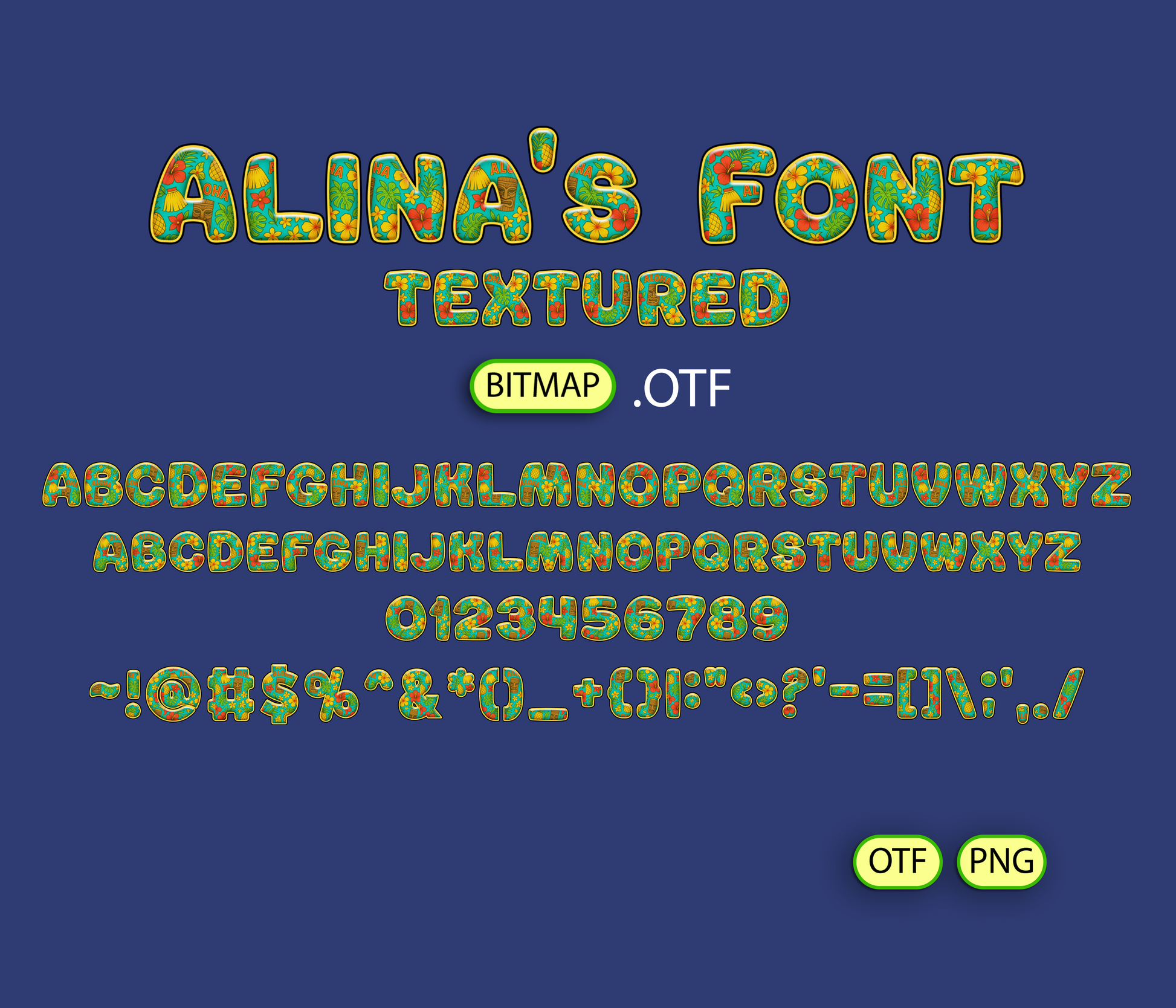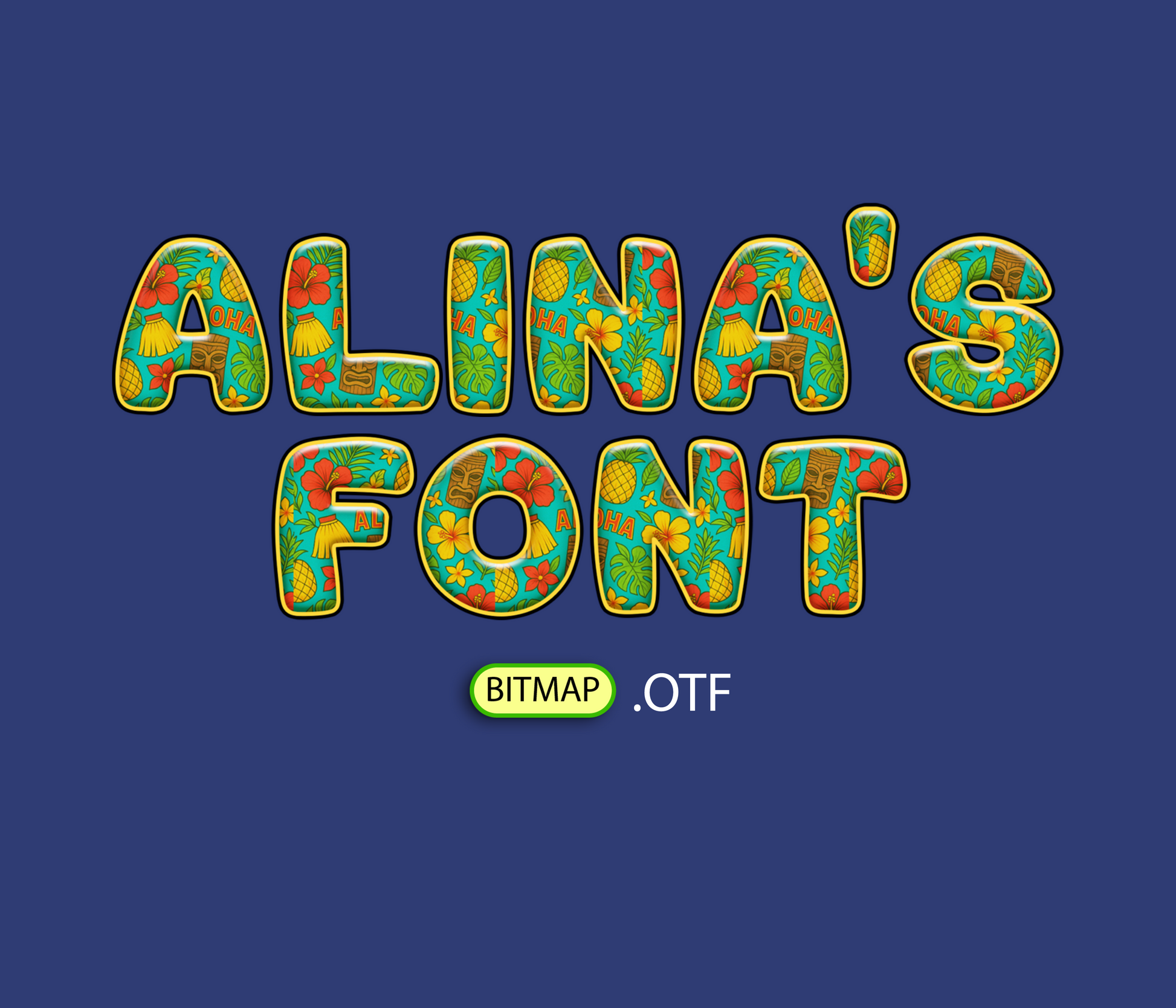
FREE Island Breeze Pattern Font
Island Breeze Typeface Textured
Escape to the captivating universe of tropical serenity with our Island Breeze Typeface, embodying the essence of swaying palms, coral lagoons, and eternal sunshine. Perfect for beach clubs, surf academies, tropical spas, and creative visionaries, this font infuses the laid-back, sun-kissed vibe of Hawaiian retreats into your artwork. Produce stunning graphics, vacation-themed goods, or digital projects with the relaxing, paradise-like energy of lei ceremonies and emerald waters.
Our Island Breeze Typeface presents fluid, wave-carved silhouettes and leisurely characters capturing the tranquil yet vibrant essence of tropical sanctuaries. Ideal for: